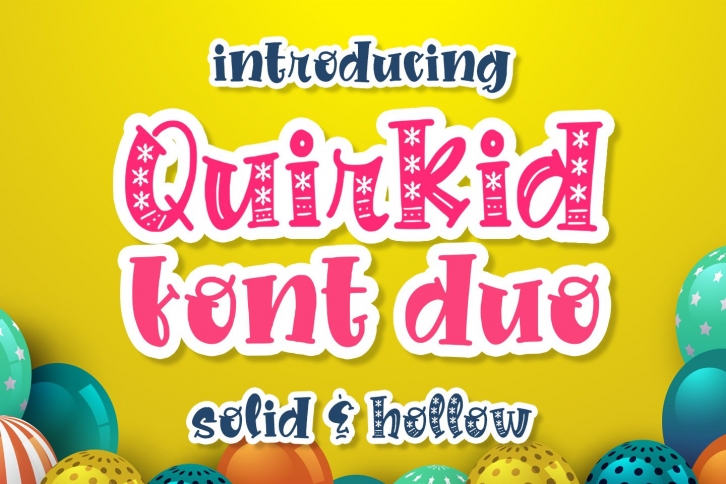
Quirkid is a trendy and unique font with an authentic style. It was designed by Abo Daniel Studio and it's a great choice for creative people who need such a font. It was released on January 5, 2021 and the file size is 16.72 MB. Quirkid will add an organic vibe to any design idea!